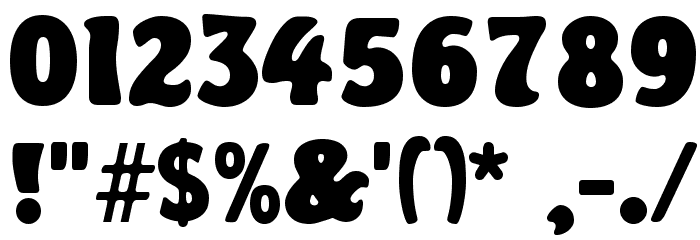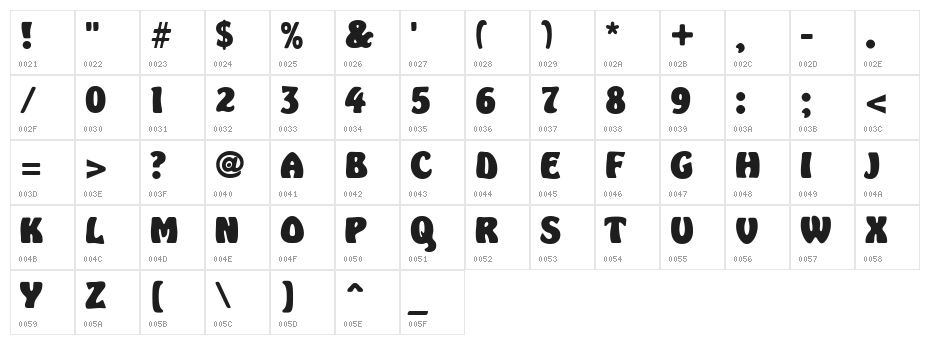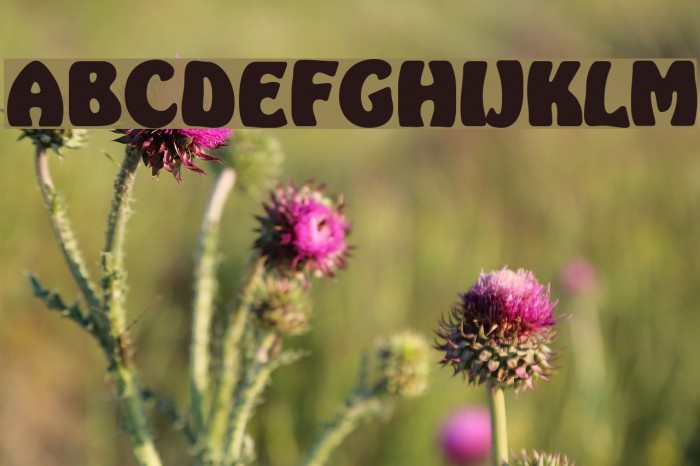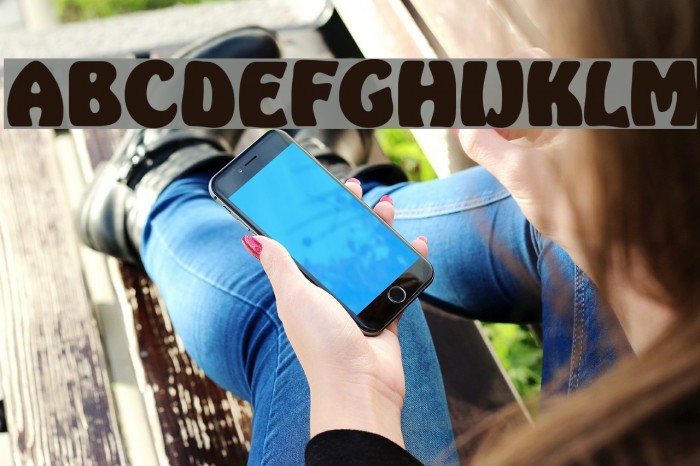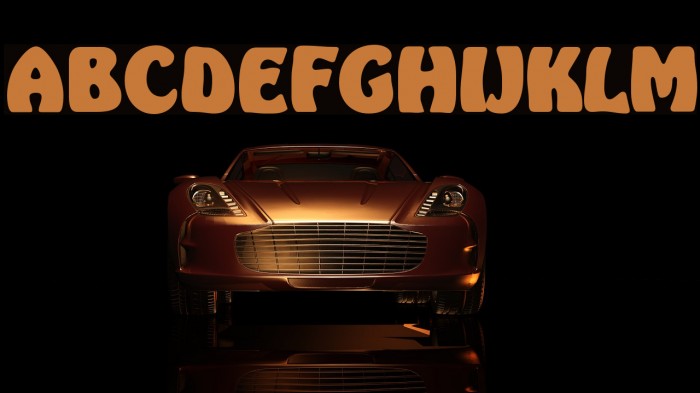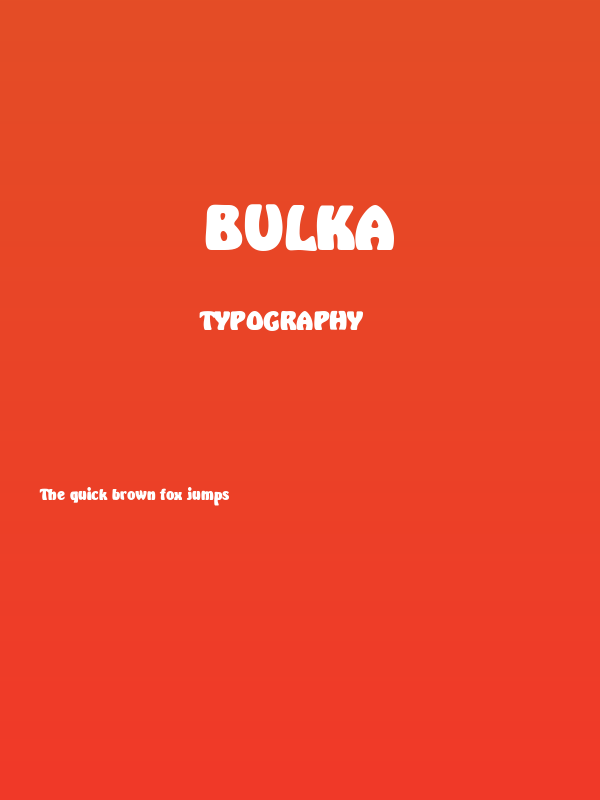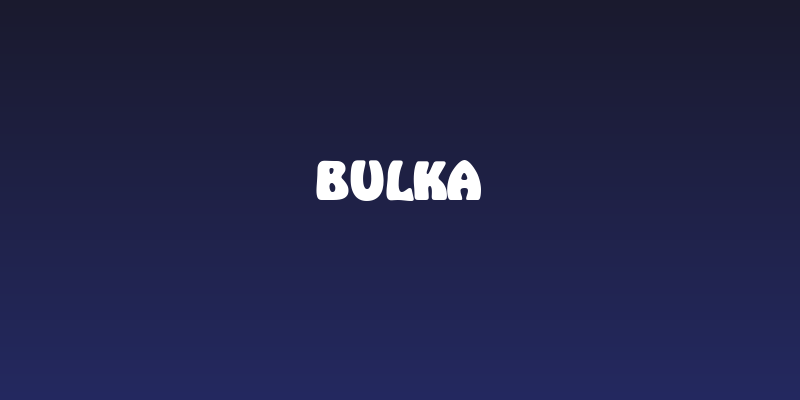
Bulka Font
Bulka Description
This font features a bold and playful design with rounded edges and a bubbly appearance. The characters are thick and have a whimsical, almost cartoon-like quality, making them stand out with a strong presence. The uppercase and lowercase letters maintain a consistent style, with the lowercase letters slightly more compact. Numbers and special characters follow the same playful theme, ensuring uniformity across all glyphs. The overall aesthetic is fun and engaging, suitable for projects that require a lively and informal touch.
| Overall Style | Playful, Fun, Whimsical |
| Proposed Projects | Ideal for children's books, playful branding, party invitations, and any project that needs a fun, informal vibe. |